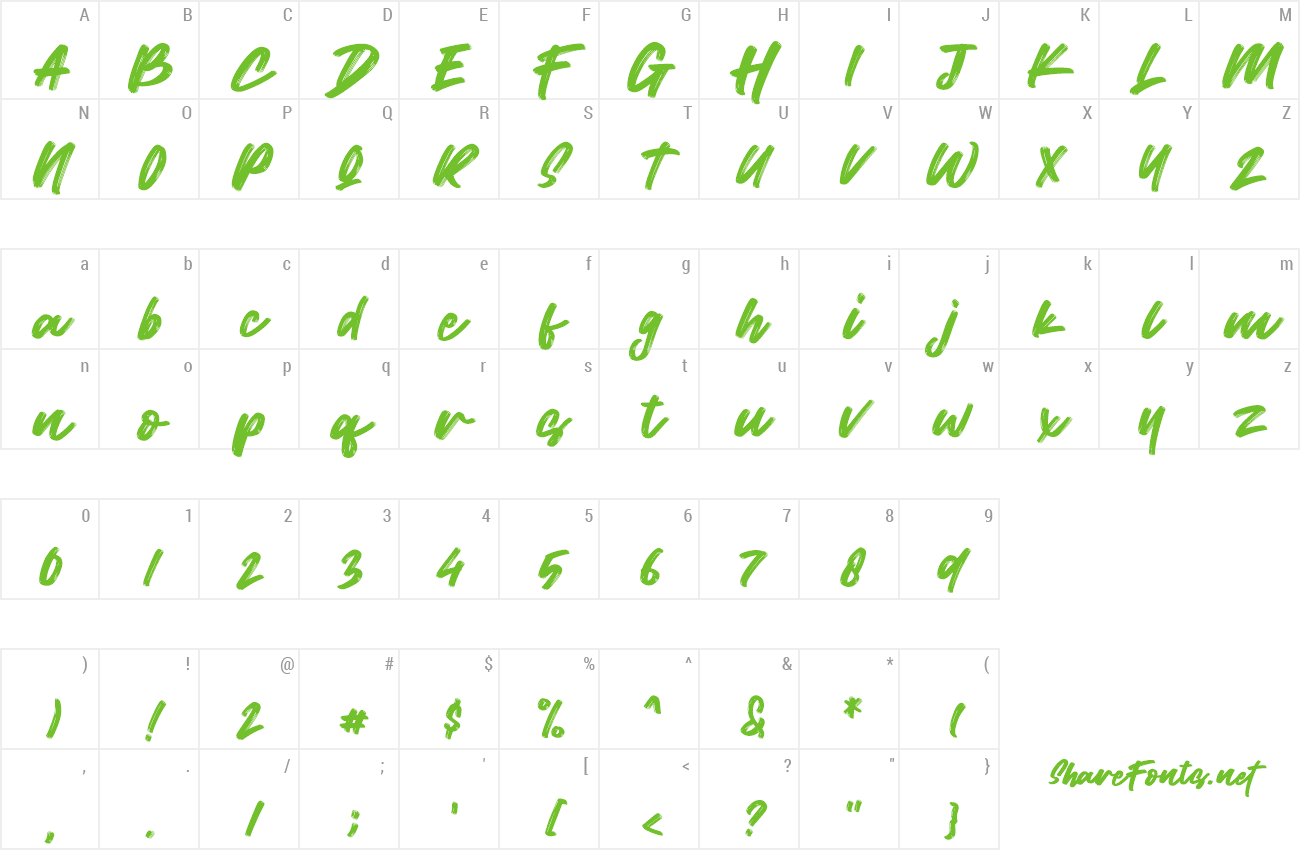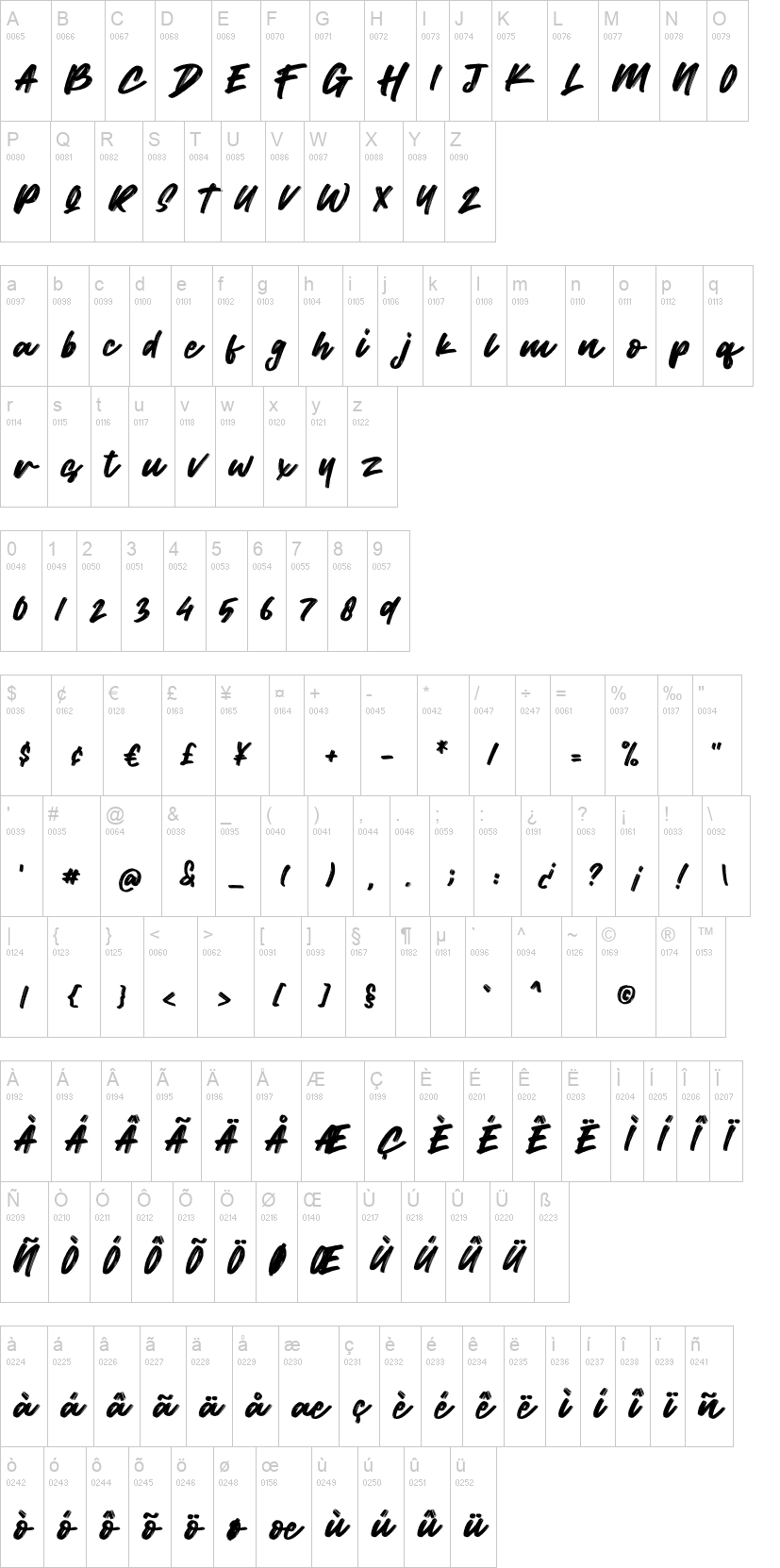
Wild Youth Font
Wild Youth Font - Web wild youth is another beautiful hand drawn brush script font from jeremy vessey. Wild youth is a modern font with. Wild youth font is an appealing script typeface with fancy hand drawn that was designed by a dry. 109,395 downloads (16 yesterday) 2. Wild youth is designed and shared by jeremy vessey. Wild youth à € by fatmastudio. Wild youth font is a neat and.
Wild youth is designed and shared by jeremy vessey. Wild youth is a modern font with. Wild youth à € by fatmastudio. Web wild youth is another beautiful hand drawn brush script font from jeremy vessey. Wild youth font is an appealing script typeface with fancy hand drawn that was designed by a dry. 109,395 downloads (16 yesterday) 2. Wild youth font is a neat and.
109,395 downloads (16 yesterday) 2. Wild youth font is an appealing script typeface with fancy hand drawn that was designed by a dry. Wild youth font is a neat and. Web wild youth is another beautiful hand drawn brush script font from jeremy vessey. Wild youth is designed and shared by jeremy vessey. Wild youth is a modern font with. Wild youth à € by fatmastudio.
Wild youth is designed and shared by jeremy vessey. Wild youth à € by fatmastudio. 109,395 downloads (16 yesterday) 2. Web wild youth is another beautiful hand drawn brush script font from jeremy vessey. Wild youth font is a neat and.
Wild youth font is an appealing script typeface with fancy hand drawn that was designed by a dry. Wild youth is designed and shared by jeremy vessey. 109,395 downloads (16 yesterday) 2. Web wild youth is another beautiful hand drawn brush script font from jeremy vessey. Wild youth font is a neat and.
Wild youth à € by fatmastudio. Wild youth is a modern font with. Web wild youth is another beautiful hand drawn brush script font from jeremy vessey. 109,395 downloads (16 yesterday) 2. Wild youth is designed and shared by jeremy vessey.
Web wild youth is another beautiful hand drawn brush script font from jeremy vessey. Wild youth is designed and shared by jeremy vessey. Wild youth font is an appealing script typeface with fancy hand drawn that was designed by a dry. Wild youth à € by fatmastudio. Wild youth is a modern font with.
109,395 downloads (16 yesterday) 2. Wild youth font is a neat and. Wild youth is designed and shared by jeremy vessey. Web wild youth is another beautiful hand drawn brush script font from jeremy vessey. Wild youth is a modern font with.
Wild youth is a modern font with. Wild youth font is a neat and. 109,395 downloads (16 yesterday) 2. Wild youth font is an appealing script typeface with fancy hand drawn that was designed by a dry. Wild youth is designed and shared by jeremy vessey.
Wild youth is a modern font with. Wild youth is designed and shared by jeremy vessey. Web wild youth is another beautiful hand drawn brush script font from jeremy vessey. Wild youth à € by fatmastudio. 109,395 downloads (16 yesterday) 2.
109,395 downloads (16 yesterday) 2. Wild youth font is a neat and. Wild youth font is an appealing script typeface with fancy hand drawn that was designed by a dry. Wild youth is a modern font with. Wild youth à € by fatmastudio.
Wild youth is a modern font with. Wild youth is designed and shared by jeremy vessey. Wild youth à € by fatmastudio. Web wild youth is another beautiful hand drawn brush script font from jeremy vessey. Wild youth font is an appealing script typeface with fancy hand drawn that was designed by a dry.
109,395 downloads (16 yesterday) 2. Wild youth font is an appealing script typeface with fancy hand drawn that was designed by a dry. Wild youth is designed and shared by jeremy vessey. Web wild youth is another beautiful hand drawn brush script font from jeremy vessey. Wild youth font is a neat and.
Wild Youth Is Designed And Shared By Jeremy Vessey.
Wild youth à € by fatmastudio. Wild youth is a modern font with. Web wild youth is another beautiful hand drawn brush script font from jeremy vessey. Wild youth font is a neat and.
Wild youth font is an appealing script typeface with fancy hand drawn that was designed by a dry.